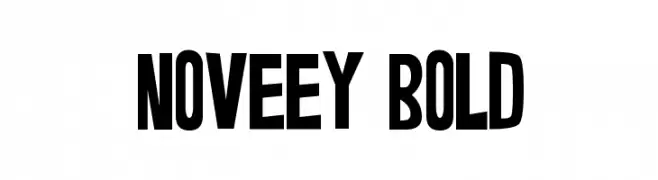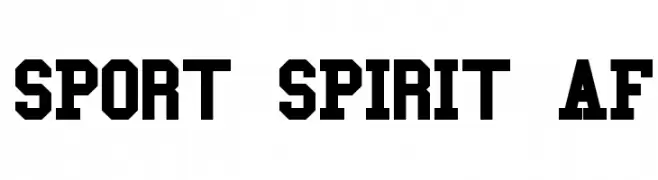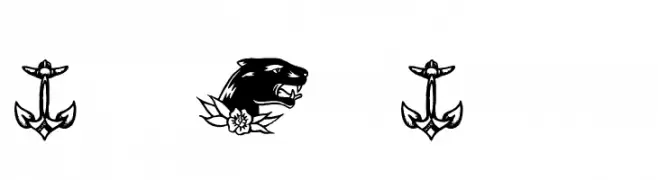
A bold, collegiate-style font with outlined, blocky characters ideal for sports and academic themes.
A bold, decorative font with snow-capped letters and a festive winter theme.
A star-themed decorative font with diverse star icons for each character.
Tattoo flash art icons in a bold, hand-drawn style.
A festive, snow-capped font with a bold, cartoonish style.
A bold, modern typeface with thick strokes and a slightly condensed style.
A bold, blocky font ideal for sports and athletic branding.
A bold, festive font with Santa illustrations on each letter.
A playful decorative font with puppy illustrations, perfect for festive projects.
A festive, gift box-themed font with bold, geometric characters and ribbon accents.